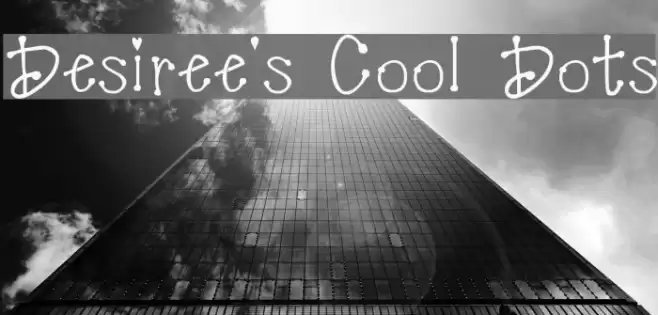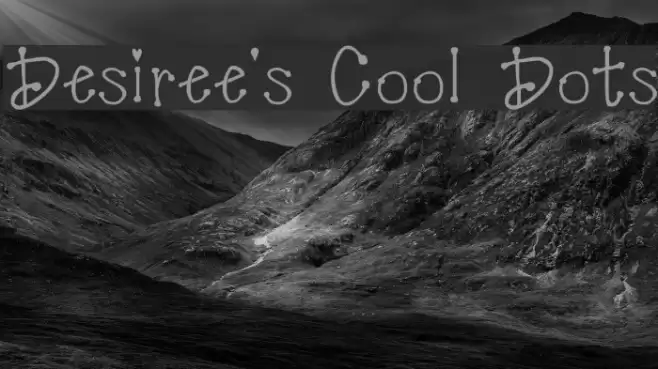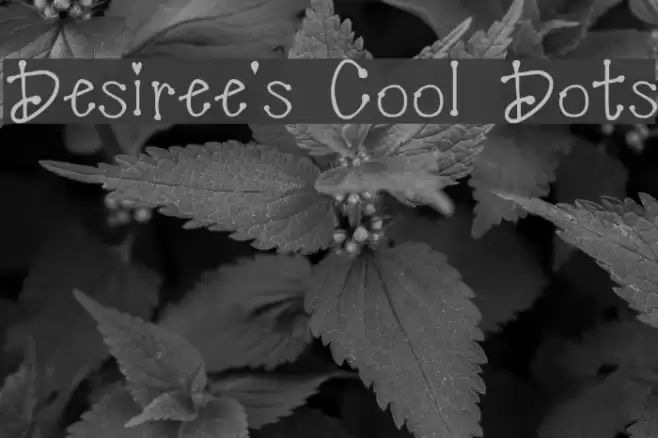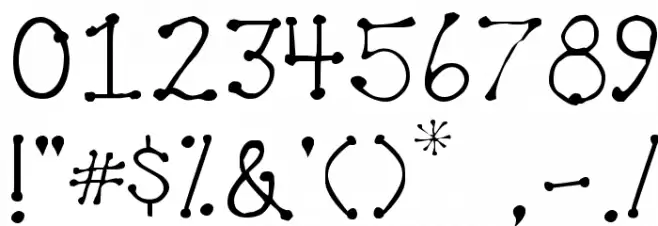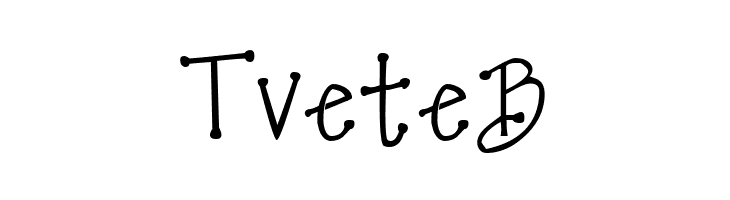
Desiree's Cool Dots Font
Desiree's Cool Dots Description
This playful and whimsical font features a unique design where each character is adorned with small dots at the ends of strokes, giving it a lively and fun appearance. The letters are crafted with a casual, hand-drawn style, making them perfect for projects that require a touch of creativity and informality. The uppercase and lowercase letters maintain a consistent style, with rounded edges and a slightly irregular form that adds to the charm. Numbers and special characters are included, following the same dotted theme, ensuring a cohesive look across all text elements.
A playful, dotted font with a hand-drawn, whimsical style from Quirky fonts.
- Proposed Projects: Ideal for children's books, playful branding, greeting cards, and creative posters.
- Overall Style: Whimsical
- Use Case: Headlines, Logos, Creative projects